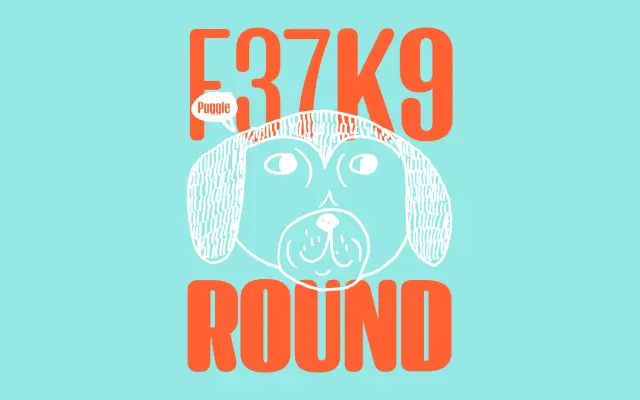
F37 K9 Round
The fully rounded sibling in the K9 family, keeping the same skeletons as K9 but with every corner softened to a circle.
A rounded display sans by Rick Banks, drawn as the fully softened cut in the F37 K9 family. Eight styles run from Light to Bold with matching italics, all aligned with K9, K9 Soft, K9 Slab, K9 Wedge and K9 Serif at the same metrics. The rounded terminals make this the friendliest cut, useful for youth brands, music, podcast identity, packaging and signage that wants a warmer take on the K9 system.
F37 present K9 Round as the fully rounded cut in the K9 family, sharing the same skeletons as K9 but with corners and stencil cuts softened to circles.